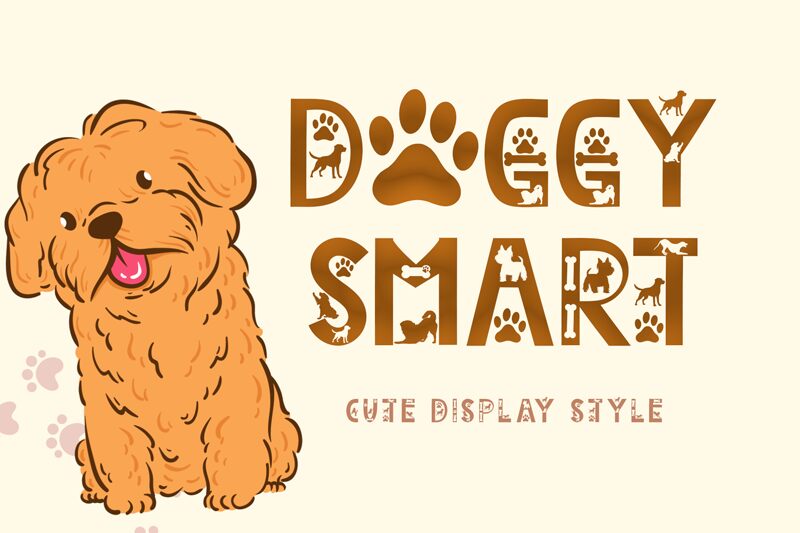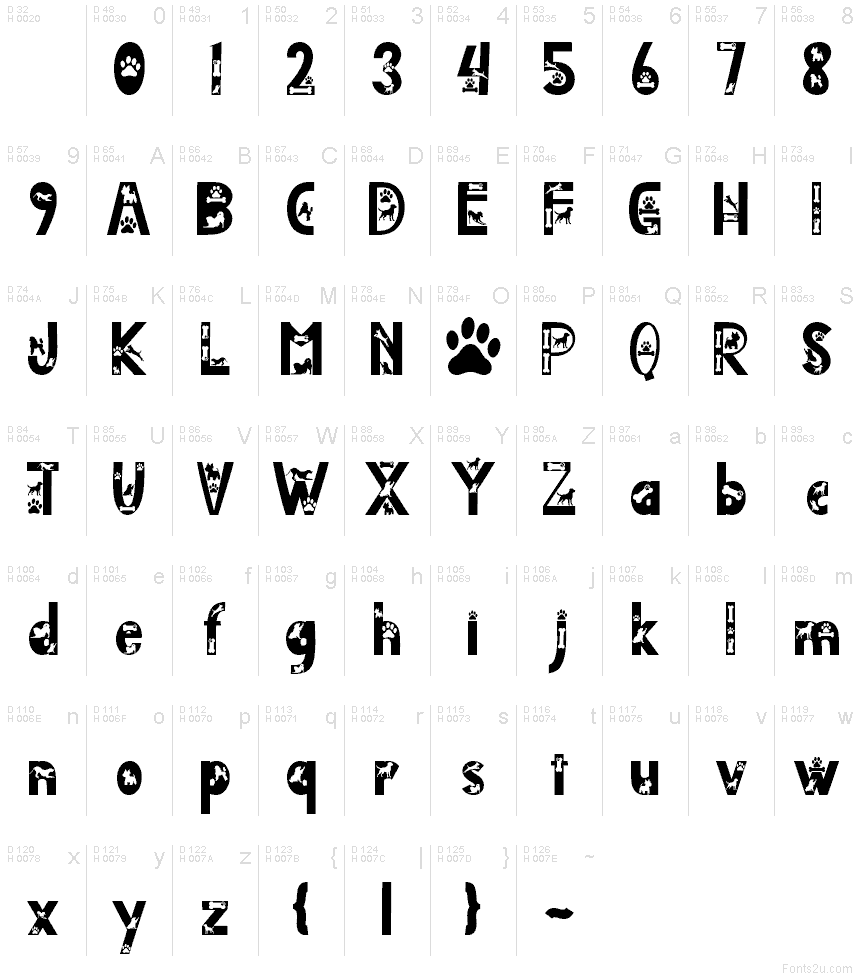
Doggy Smart
Doggy Smart font by Yoga Letter is a free decorative display typeface that turns every letter into a lively dog zone. Bold black shapes are punched with playful silhouettes—paws, pups, and bones—so your words feel like they’re jumping, wagging, and scampering across the page. The chunky forms stay readable while still feeling whimsical, like a hand-cut collage on a kennel door or pet shop window.
Using Doggy Smart, you can instantly theme anything for dog lovers: pet shop branding, grooming salon signs, vet clinic posters, kids’ party invitations, stickers, social graphics, or event banners. This free font shines at larger sizes where the little canine details can really be seen; pair it with a clean rounded sans-serif for supporting text so the artwork stays fun but still easy to read.